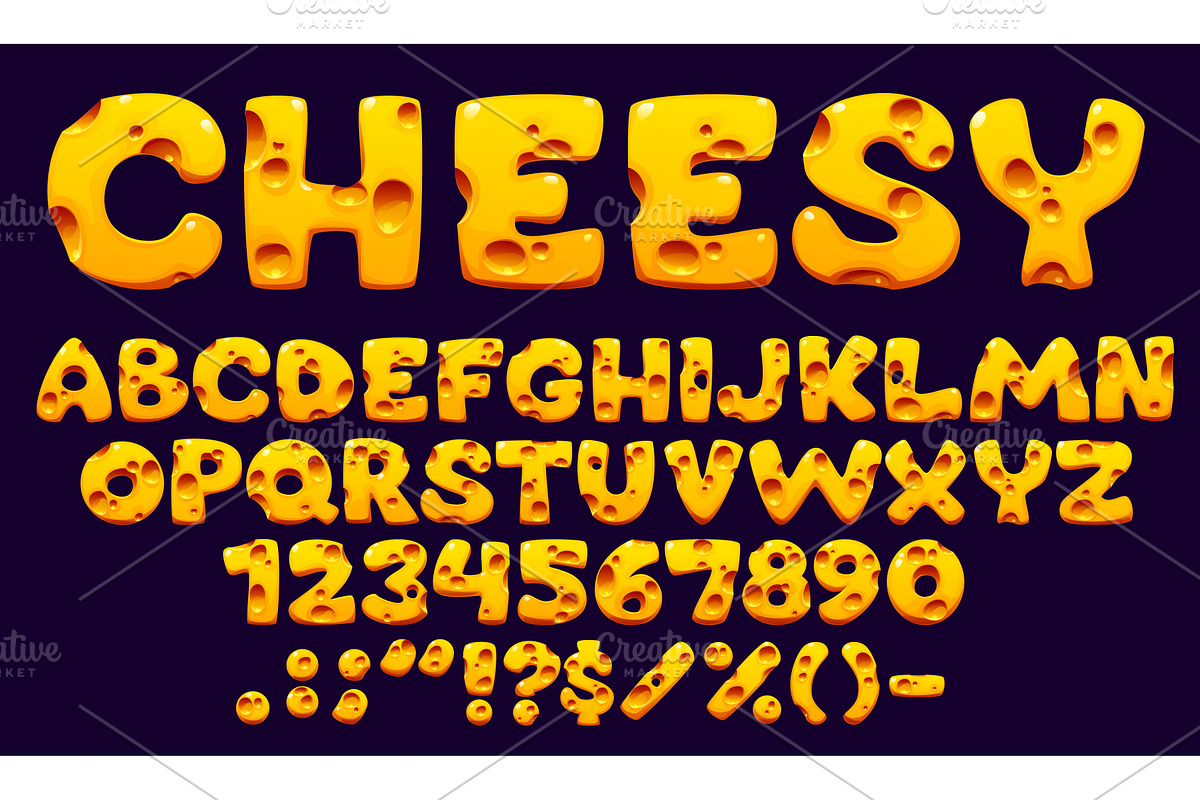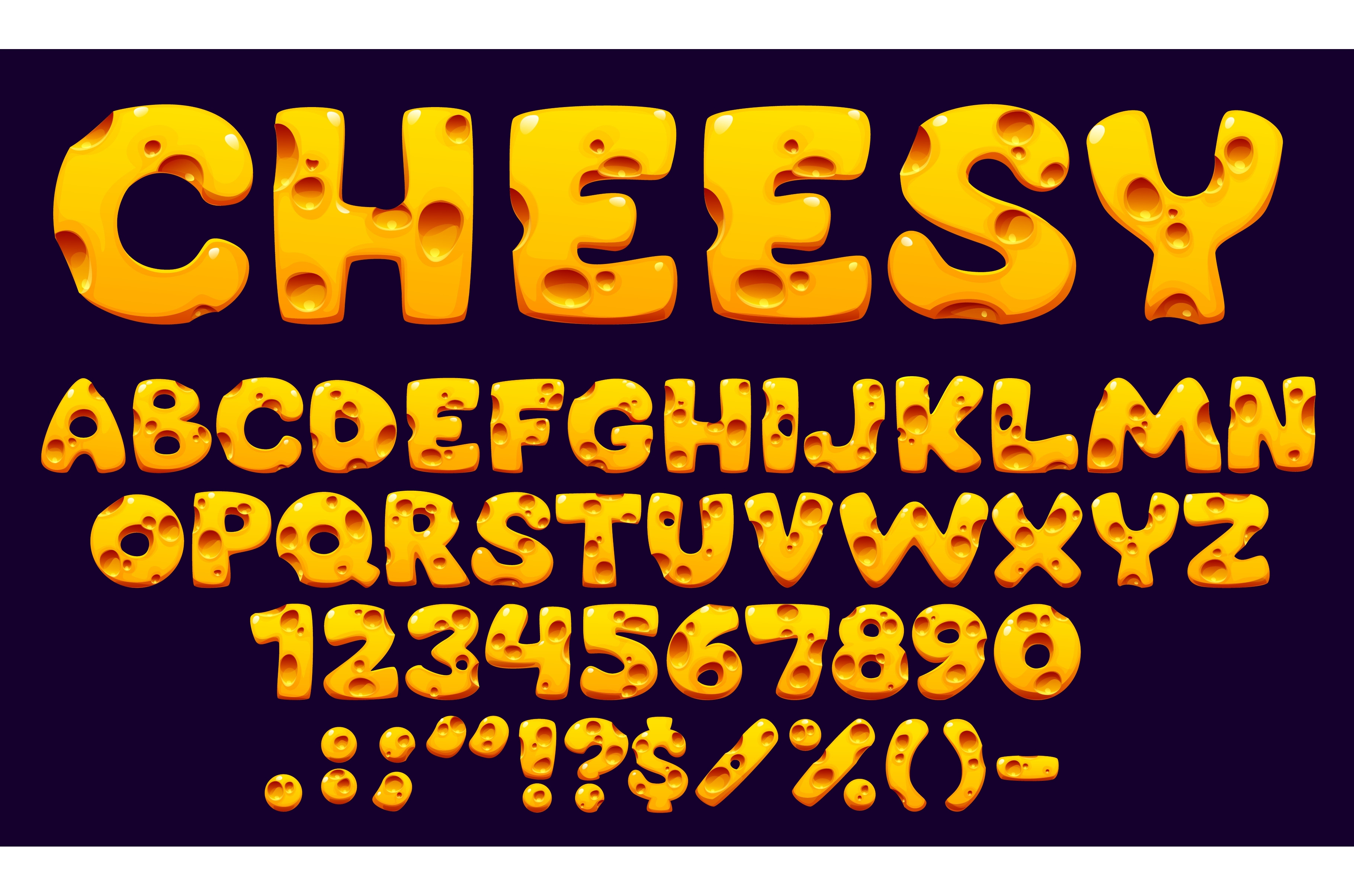
Cartoon cheese font, Swiss typeface
Cartoon cheese font, yellow Swiss and Maasdam typeface or cheesy Gouda type, vector dairy letters alphabet. Cheese font with holes in letters for funny cheesy ABC type and English alphabet typeface